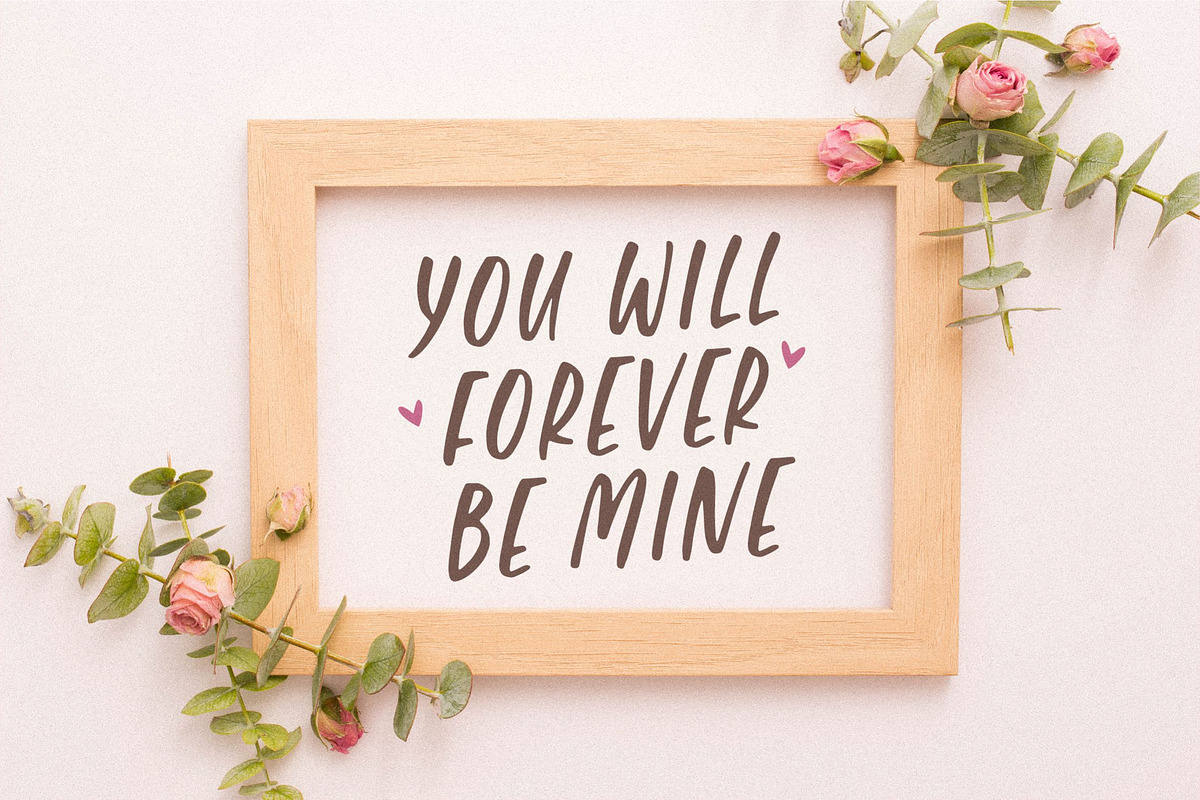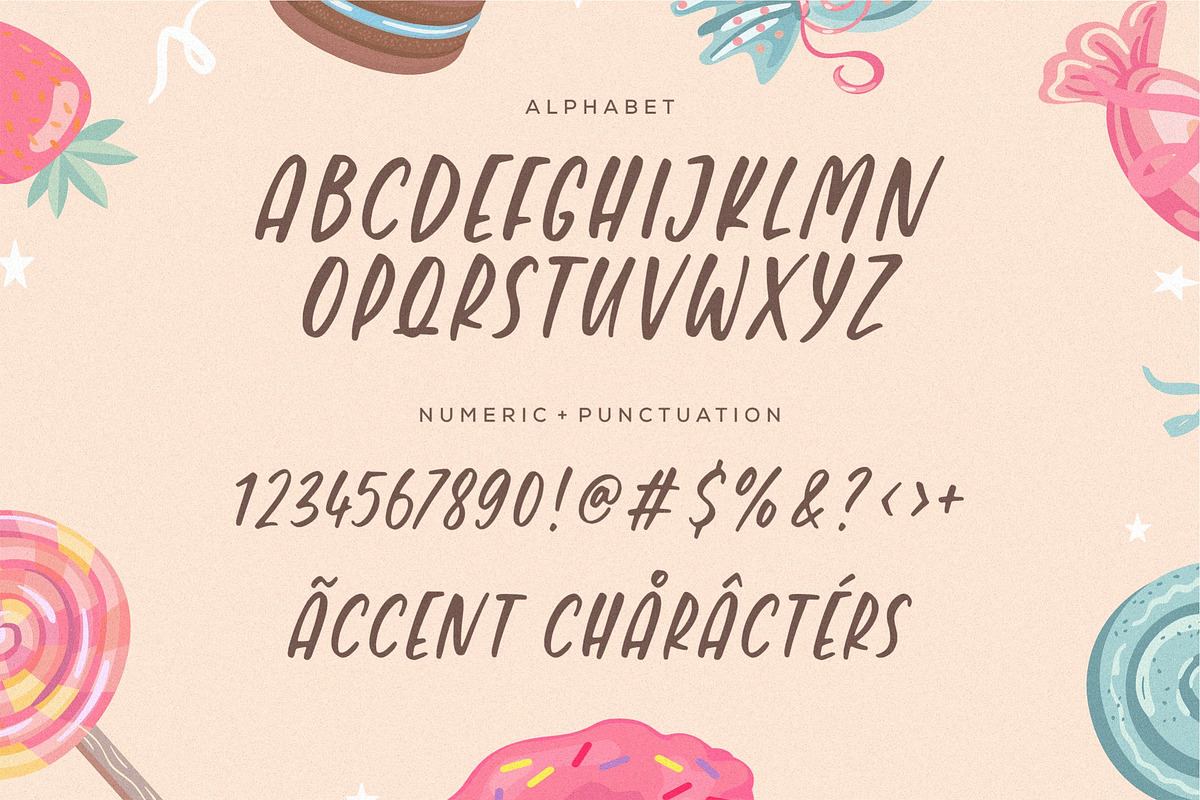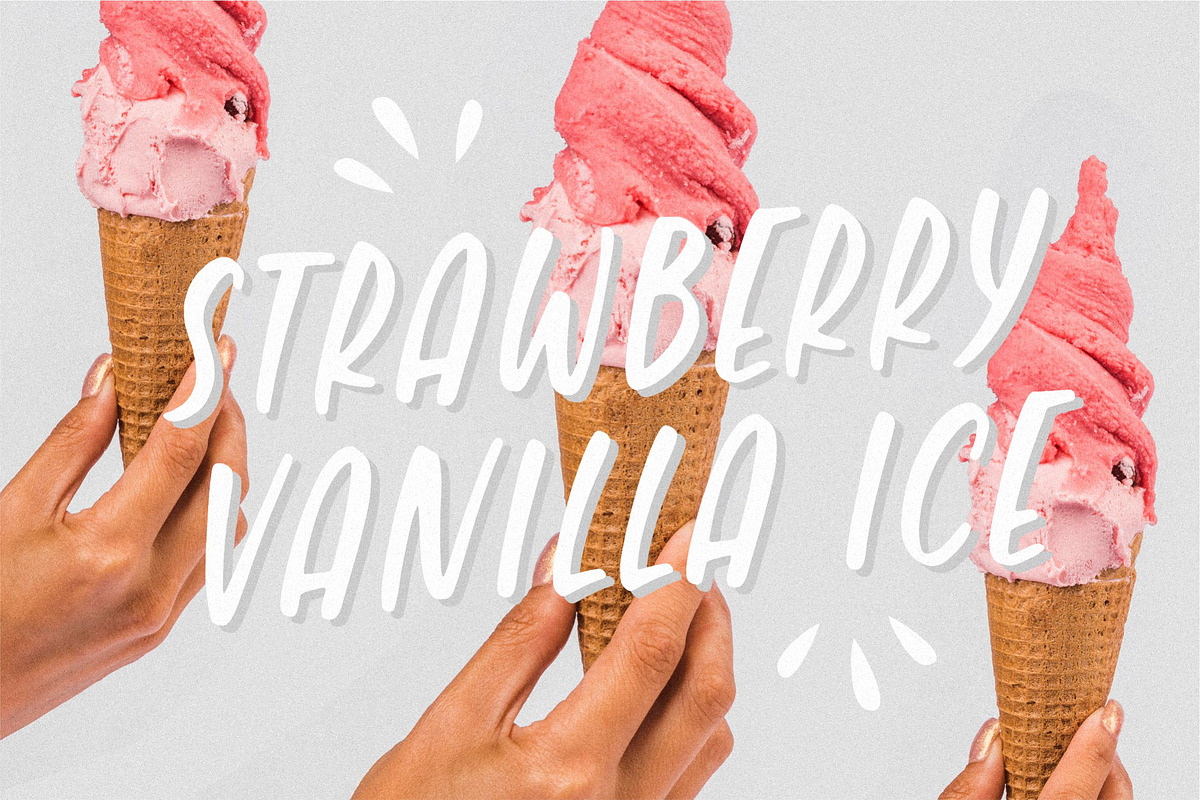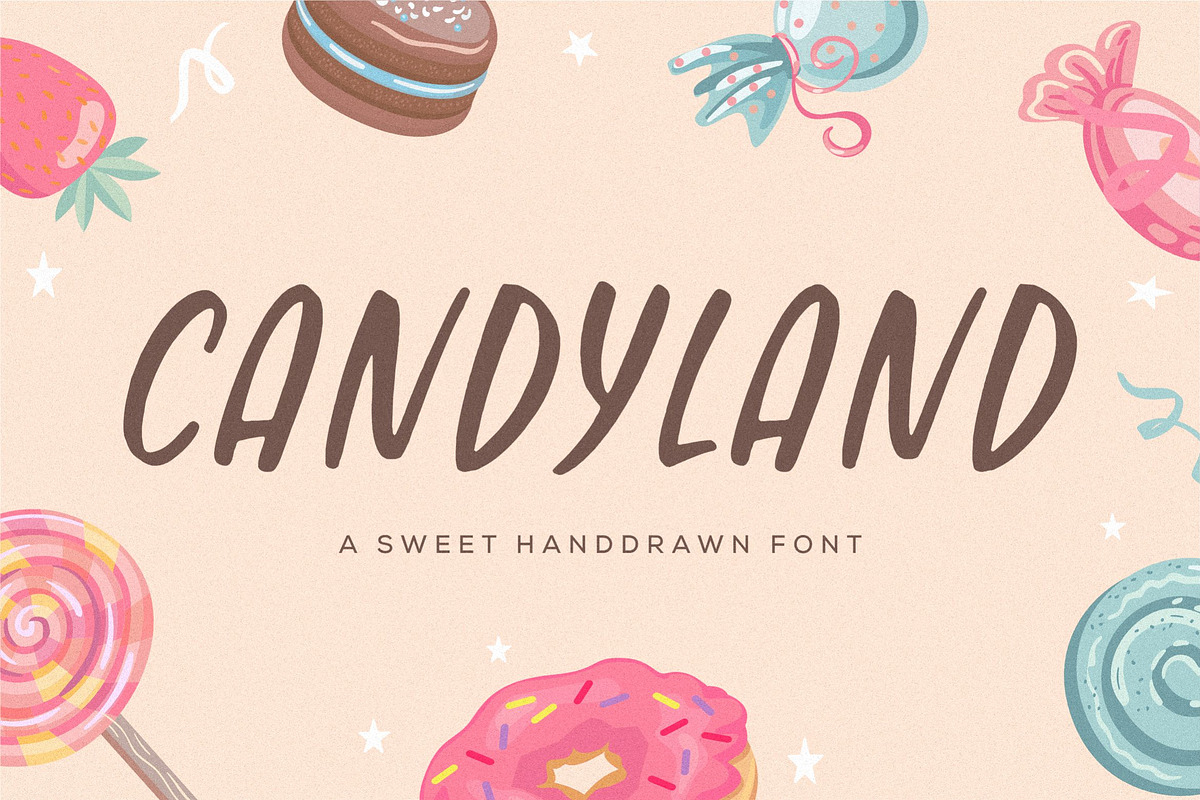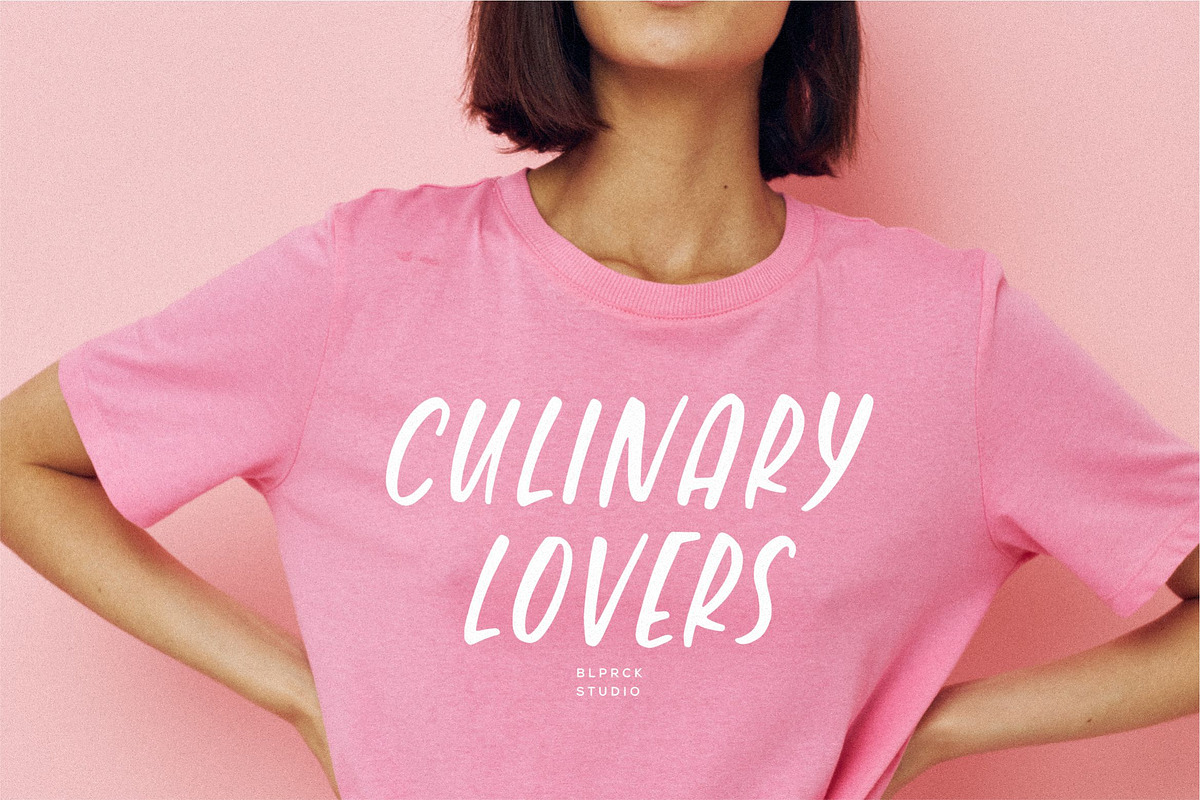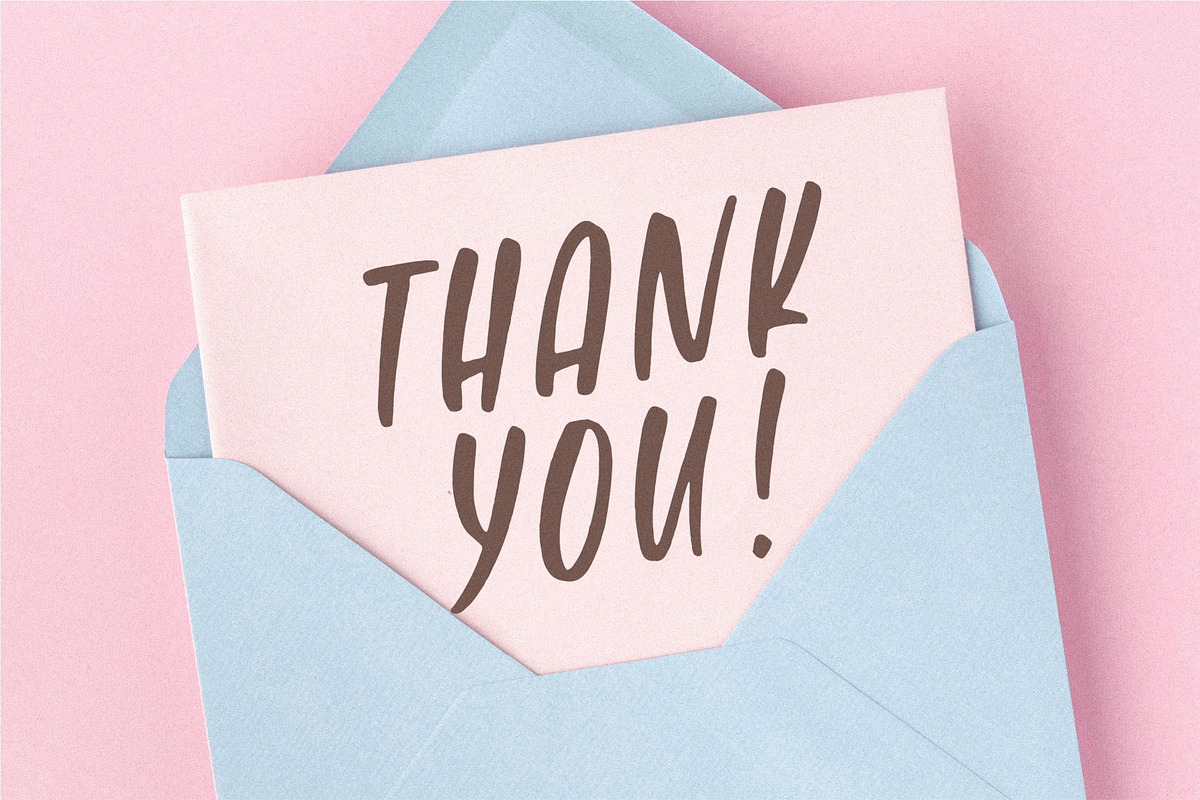
Candyland Font
Introducing by Balpirick Studio.
Candyland is a Sweet Handdrawn Font.
Whether you’re using it for crafts, digital design, presentations, or making greeting cards, this font has the potential to become your favorite go-to font, no matter the occasion!
This font only has allcaps letters.
- also multilingual support